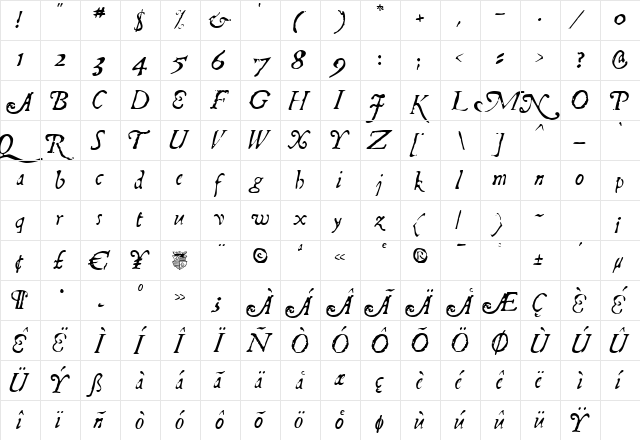
Telegdi ItalicAlts
Design Context for Telegdi Typeface
Telegdi is a composed and adaptable typeface that performs quietly and consistently across a wide range of design contexts. Its italic angle brings a sense of urgency and motion to the letterforms.
Pro Tip: Use Telegdi for emphasis, pull quotes, and subheadings where its slanted energy can add rhythm to the layout.